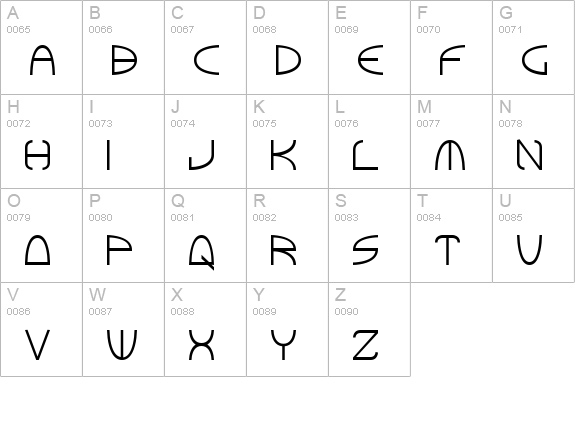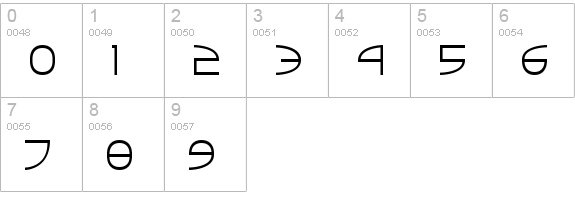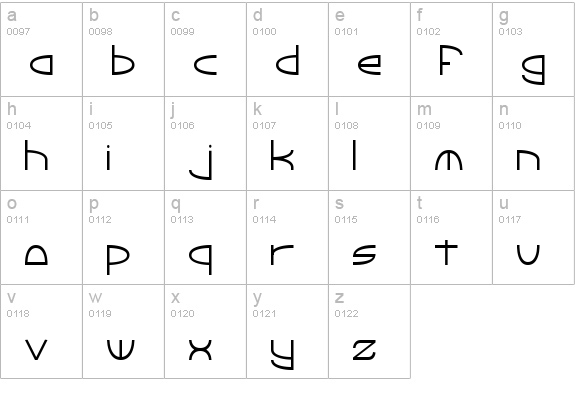
Tinker Round font is a whimsical and playful typeface that is sure to bring a touch of enchantment to any design project. With its rounded edges and charming letterforms, this font captures the essence of creativity and imagination. Perfect for children's books, invitations, and any design that aims to evoke a sense of wonder, Tinker Round font adds a delightful and light-hearted touch. Its versatility allows it to be used for both headlines and body text, making it an excellent choice for any project. But what truly sets Tinker Round font apart is that it is free! Yes, you read that right. This captivating and captivating typeface can be freely downloaded at FontsMarket.com. So whether you're a professional designer or just someone looking to add a touch of magic to your personal projects, Tinker Round font is the perfect choice. With its generous availability and charming design, Tinker Round font is a must-have addition to any font collection. Download it today and let your imagination take flight with this delightful and whimsical typeface.